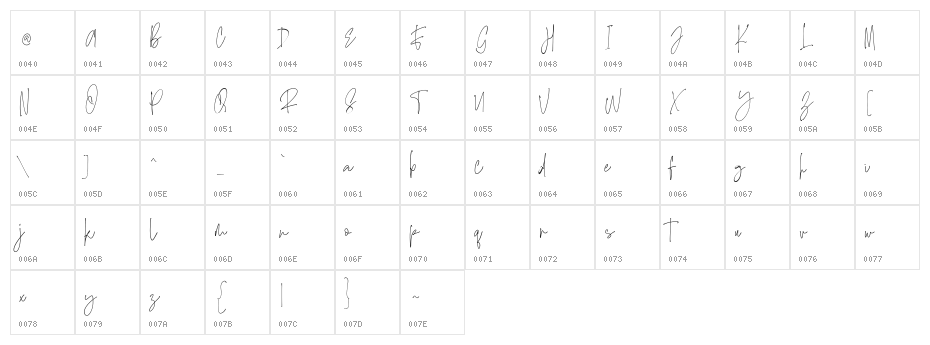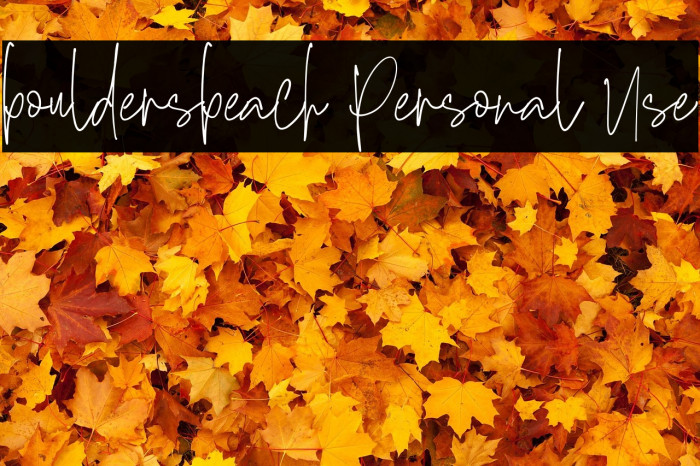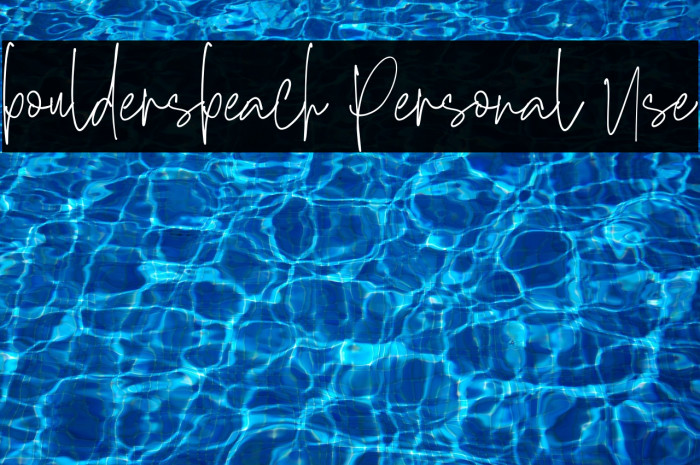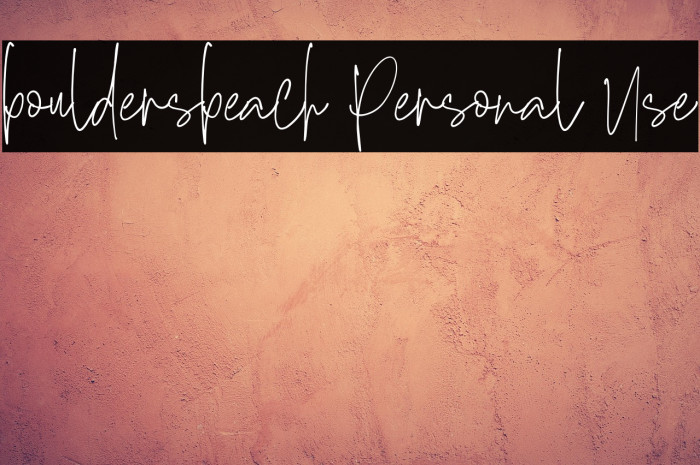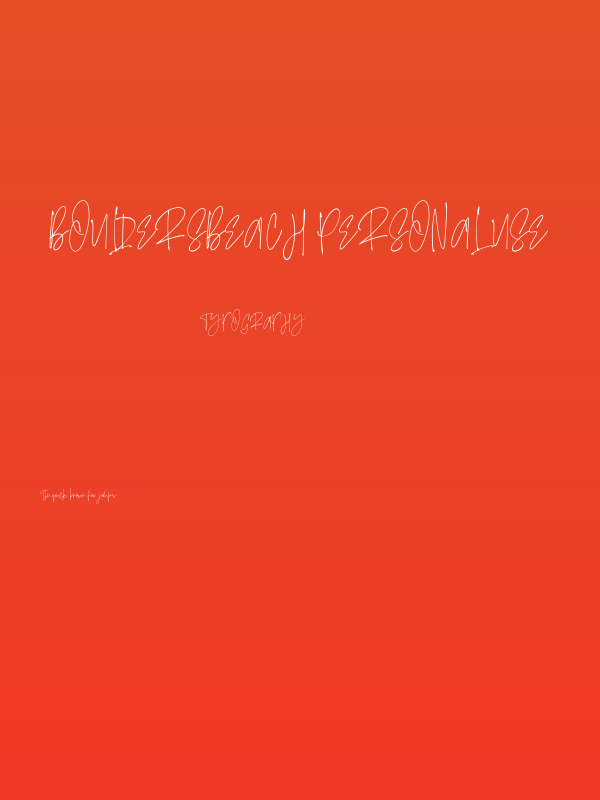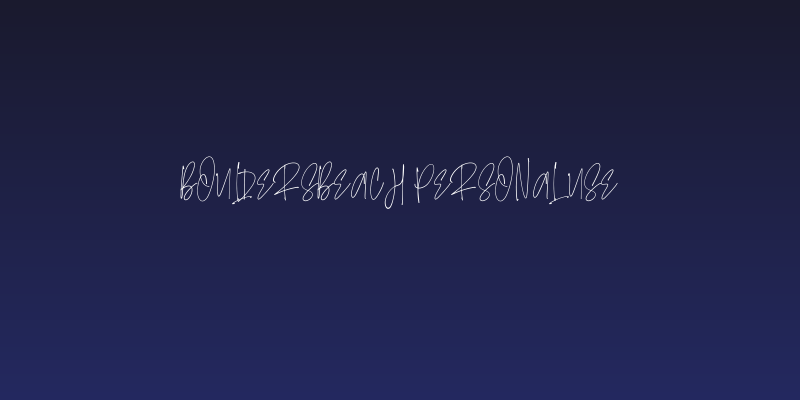
bouldersbeach Personal Use Font
bouldersbeach Personal Use Description
This font features a dynamic and expressive handwritten style, characterized by its fluid and irregular strokes. The letters are elongated and slightly slanted, giving it a casual yet sophisticated appearance. The uppercase and lowercase letters maintain a consistent flow, while the overall design exudes a sense of spontaneity and creativity. The strokes vary in thickness, adding a lively and personal touch to the text. This font is perfect for projects that require a personal and artistic flair, such as invitations, greeting cards, or branding materials.
| Proposed Projects | Ideal for invitations, greeting cards, branding, and artistic projects. |